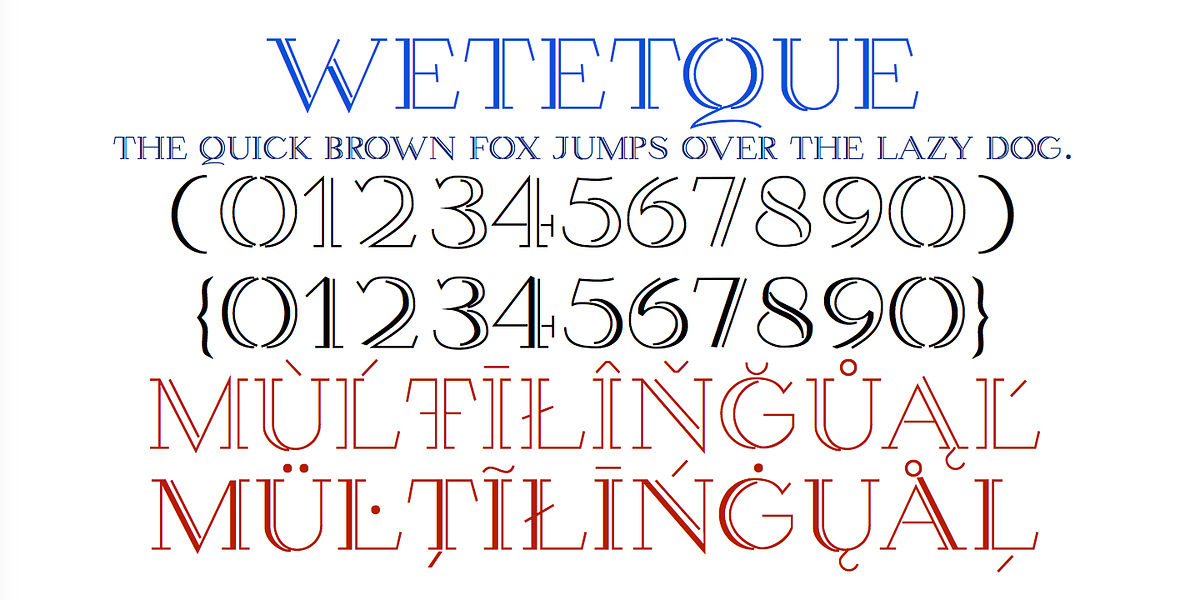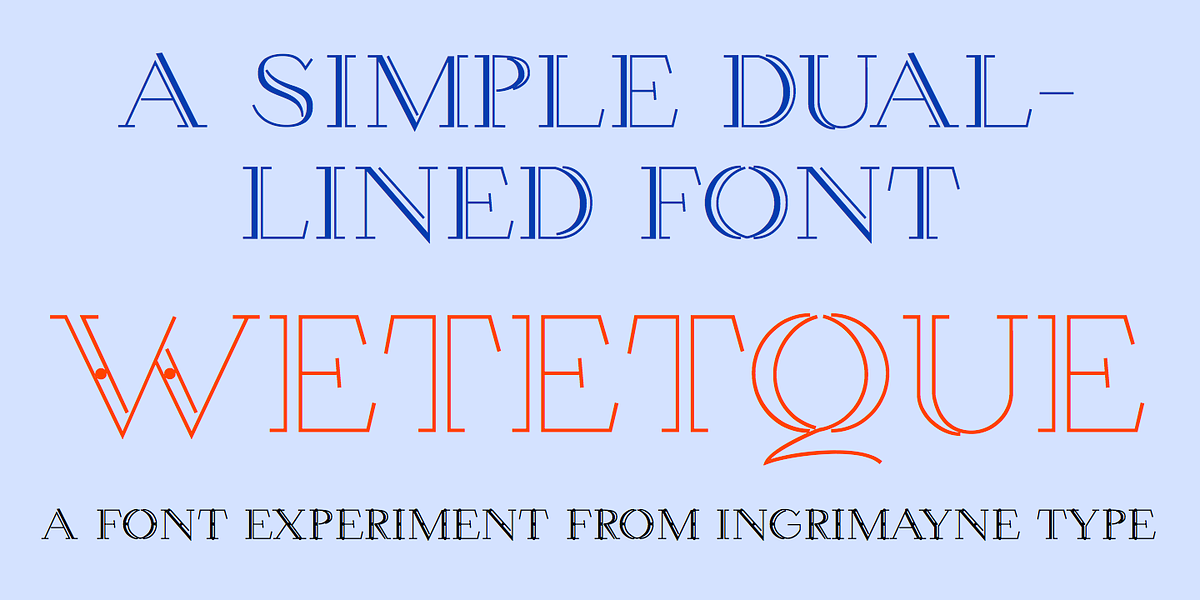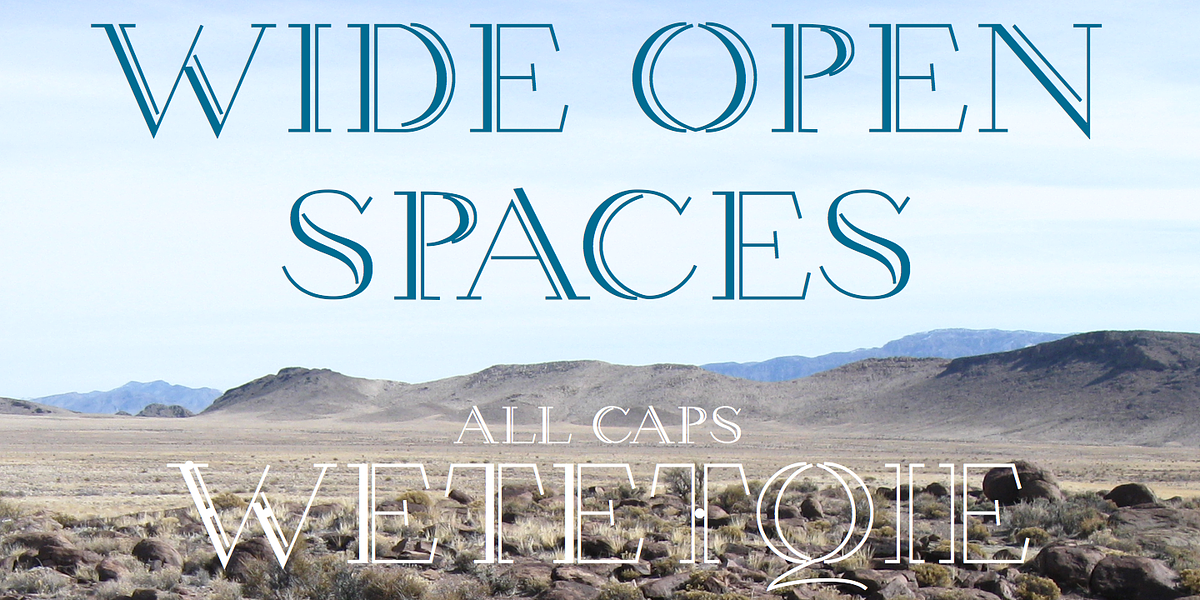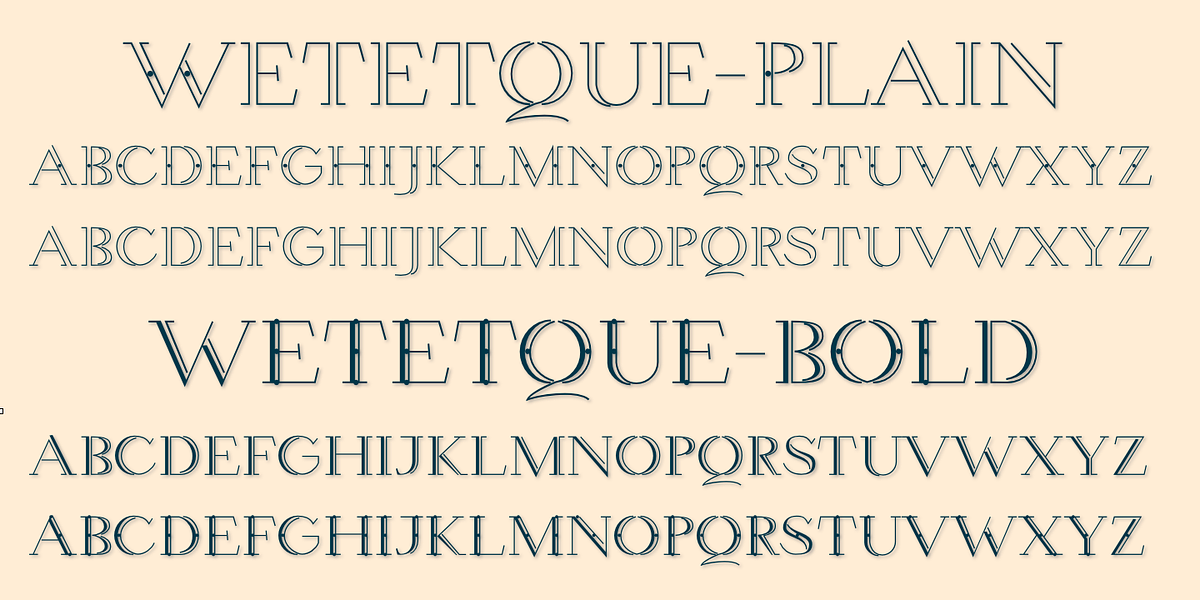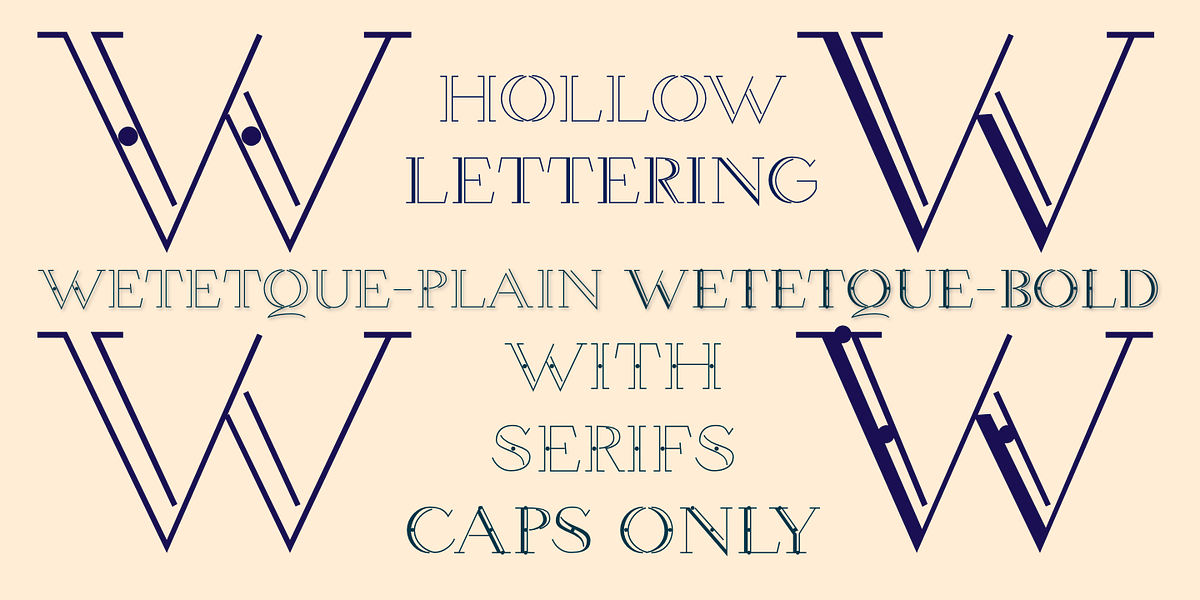
Wetetque
Wetetque is a display serif font characterized by its elegant inline and outline strokes. The font features distinct uppercase and lowercase letter designs, resulting in four unique sets of characters. It is available in regular and bold weights, suitable for headlines, branding, and other display applications.